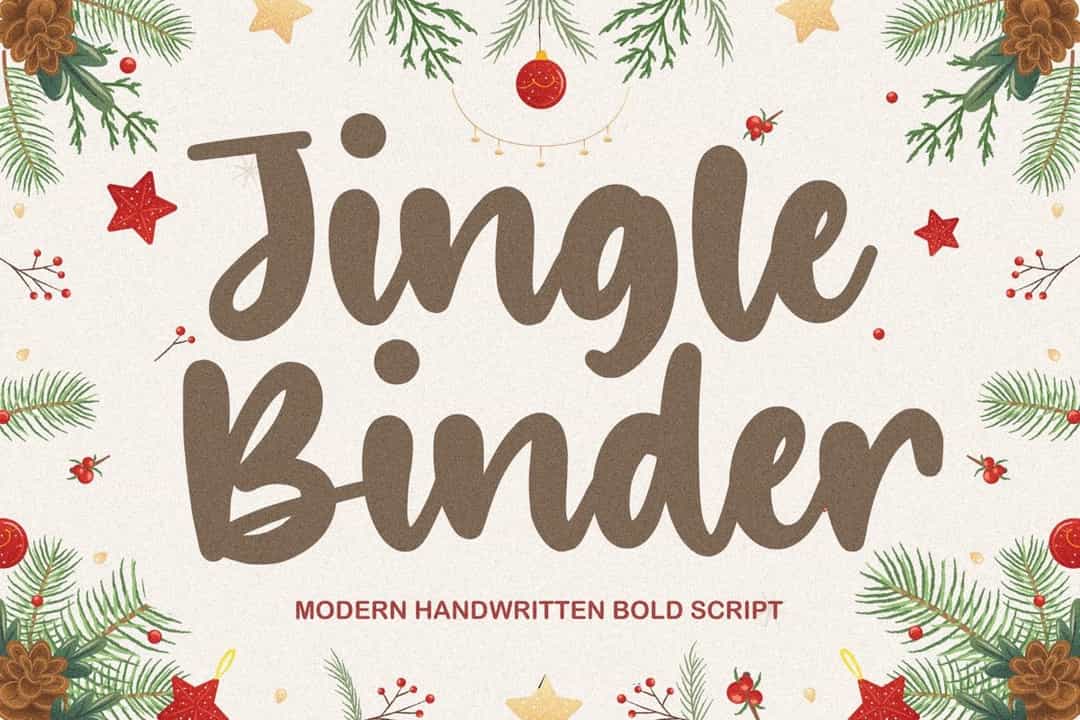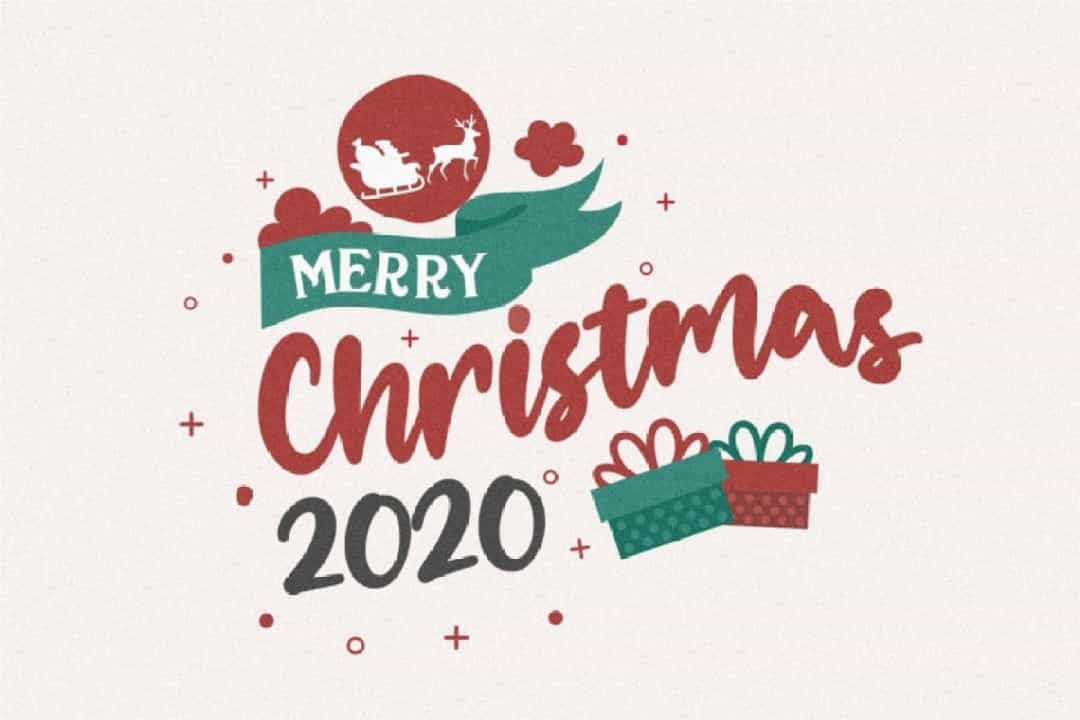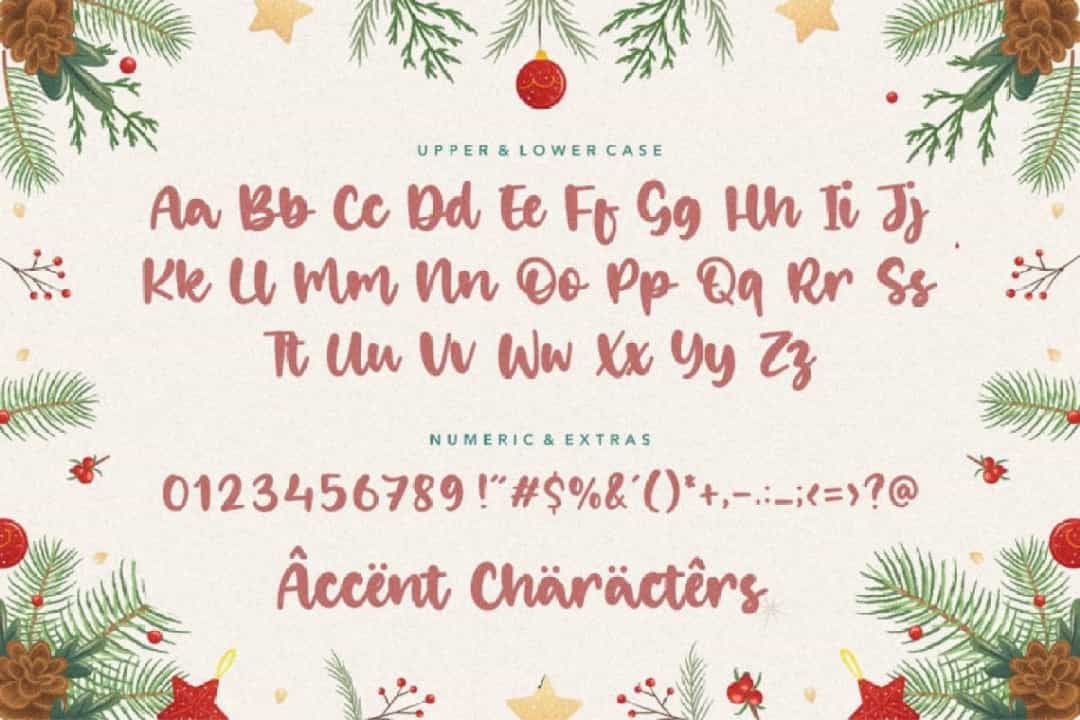
Jingle Binder is the font that has handwritten lettering with the bold lettering that is perfect to use in packaging, branding, magazines, weddings, social media posts, or even to write words on the backgrounds. It also has TTF support and has all the multilingual characters.